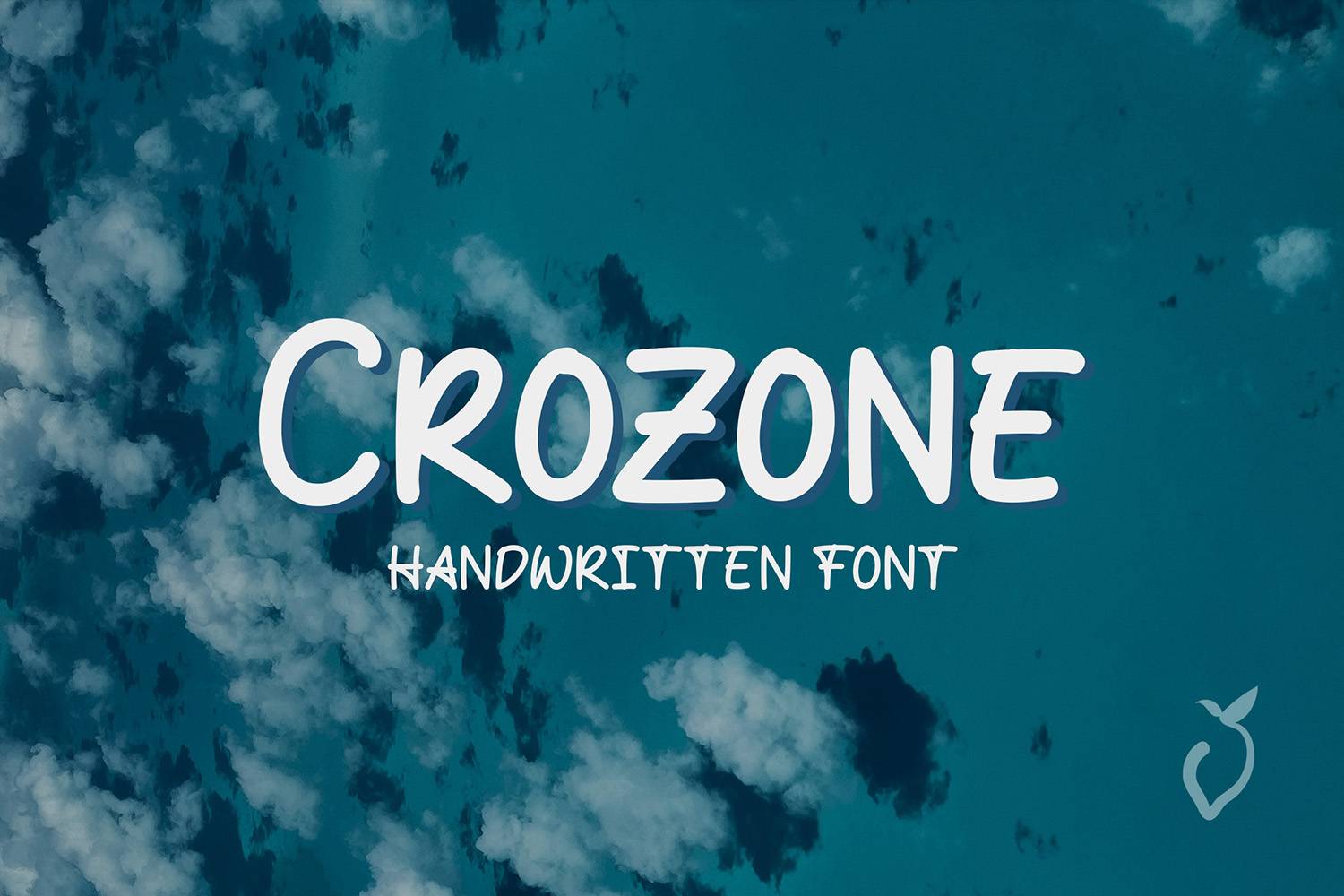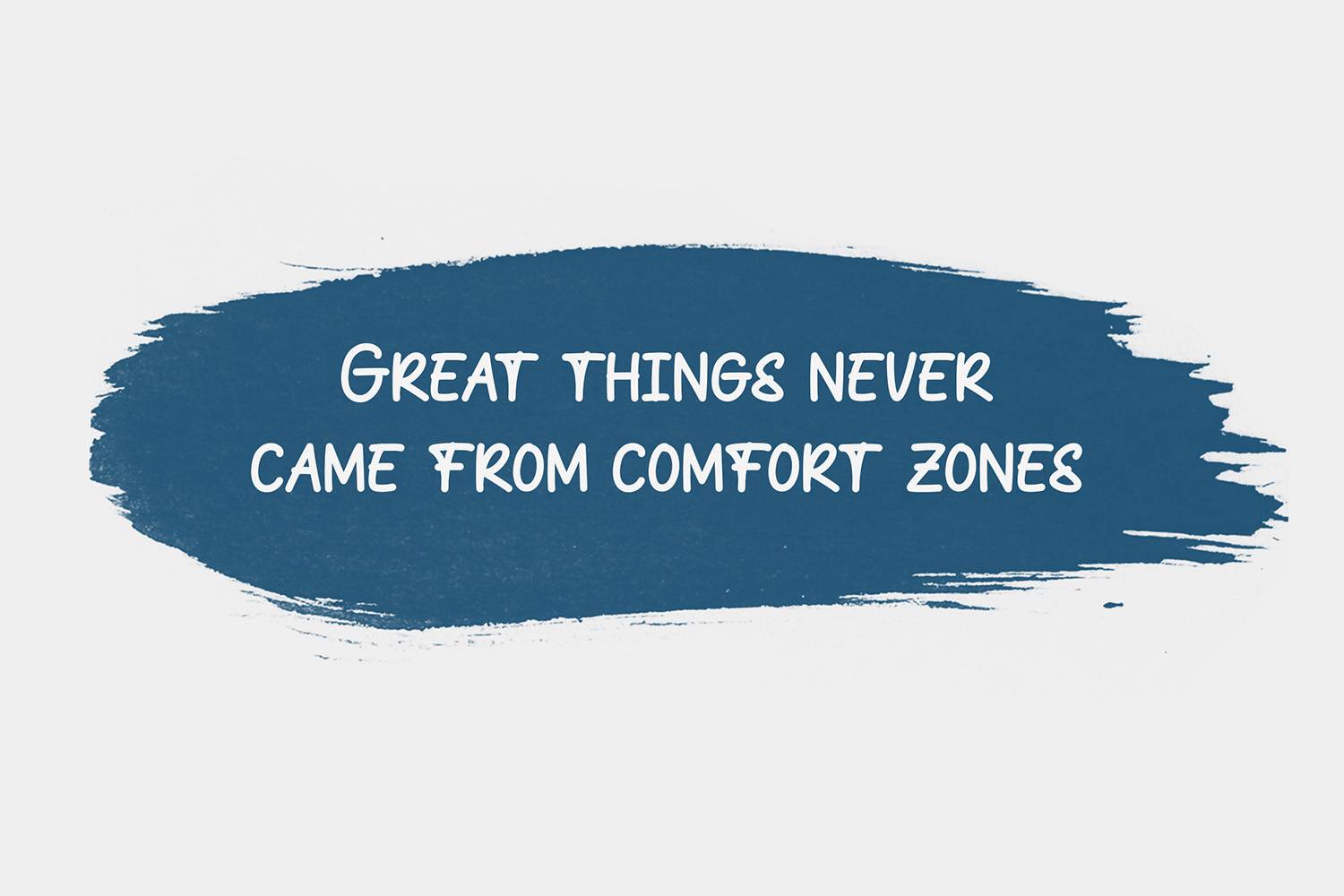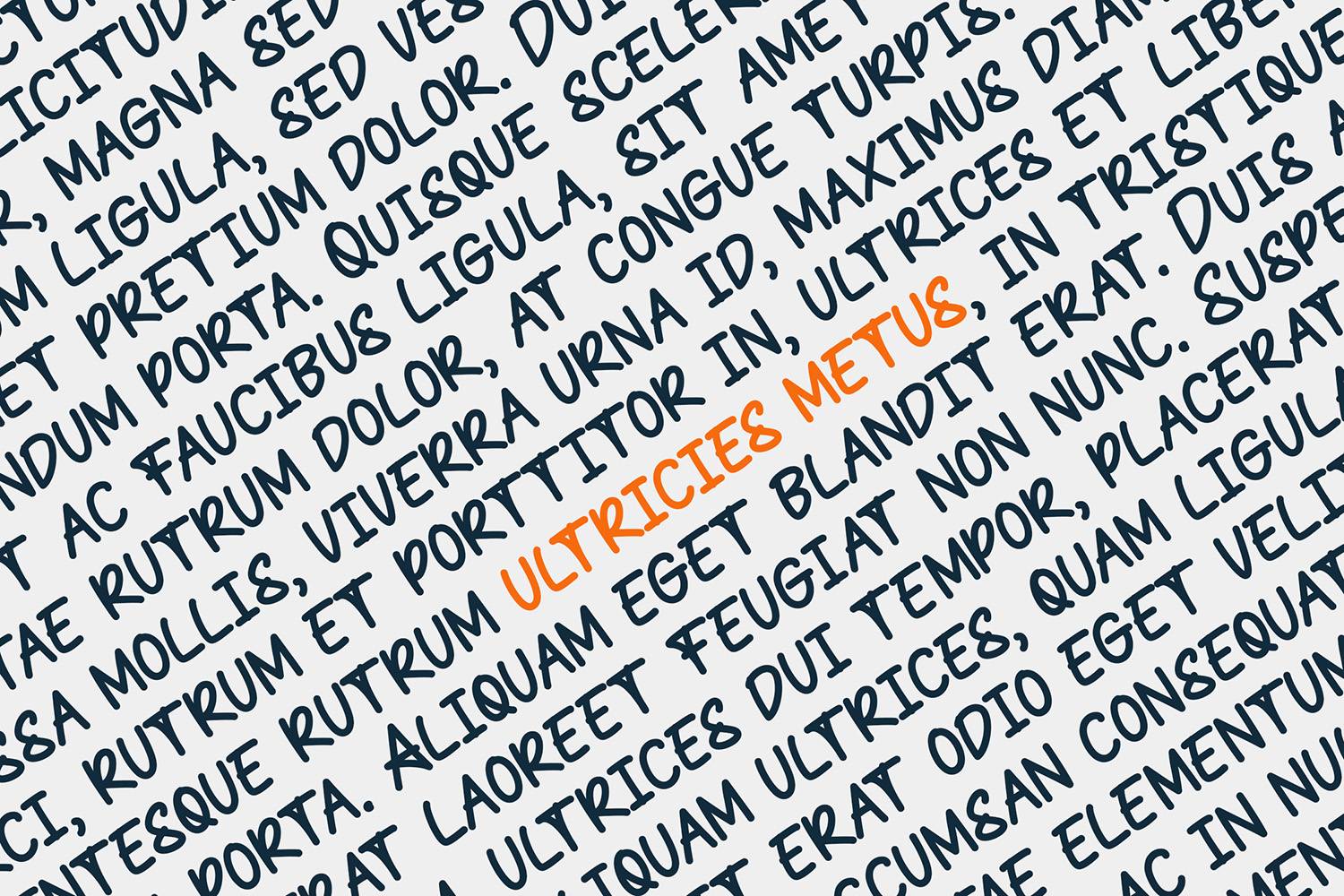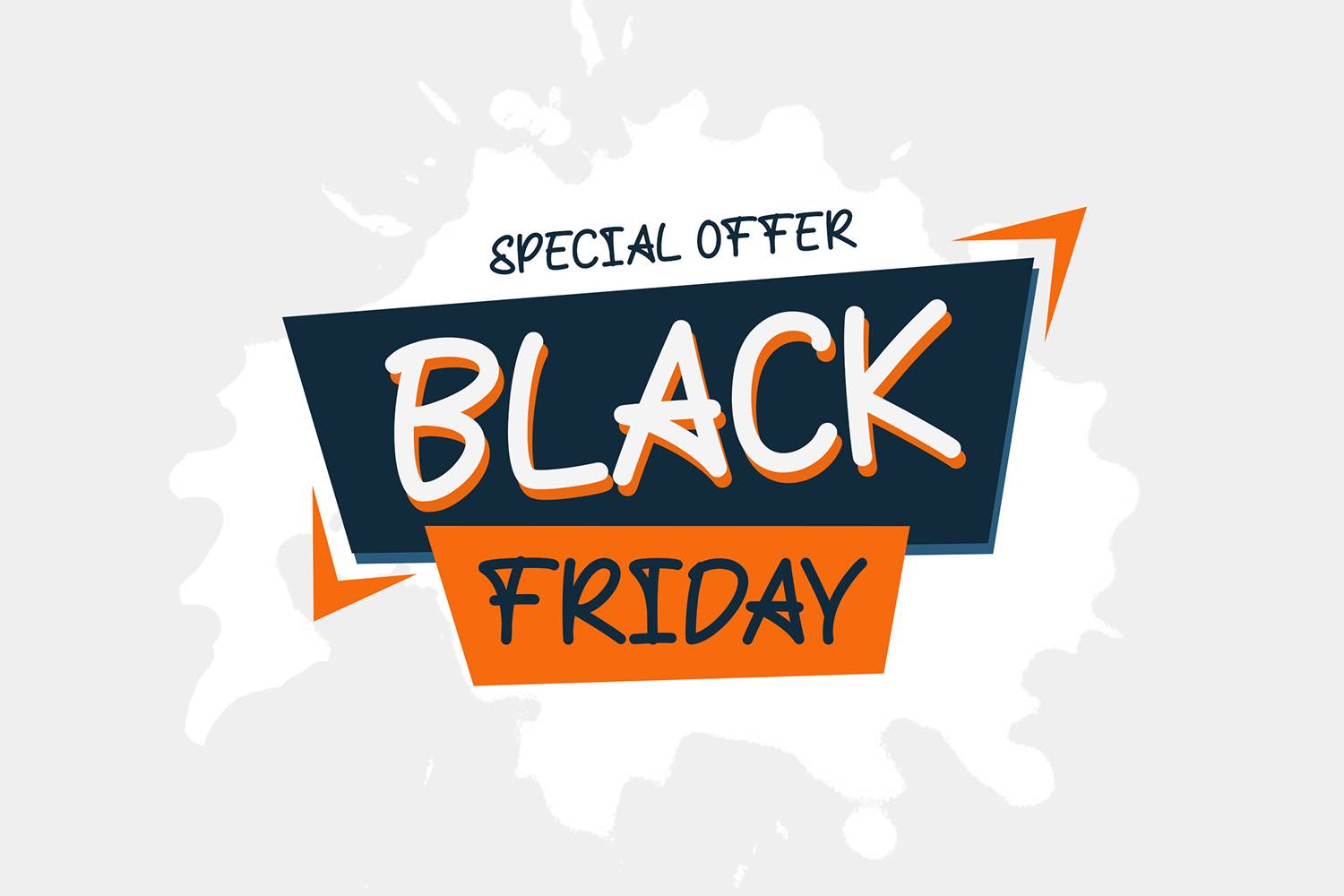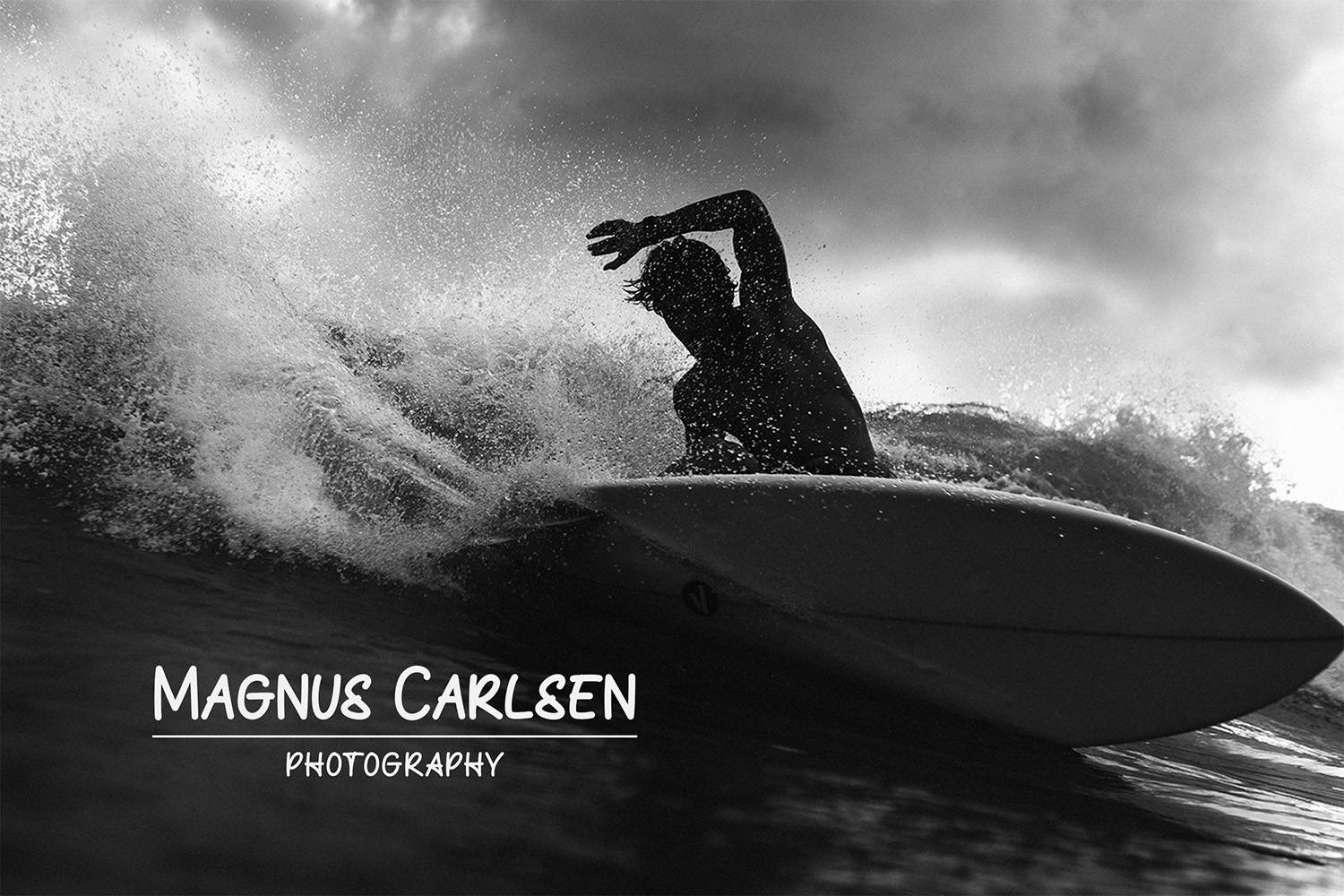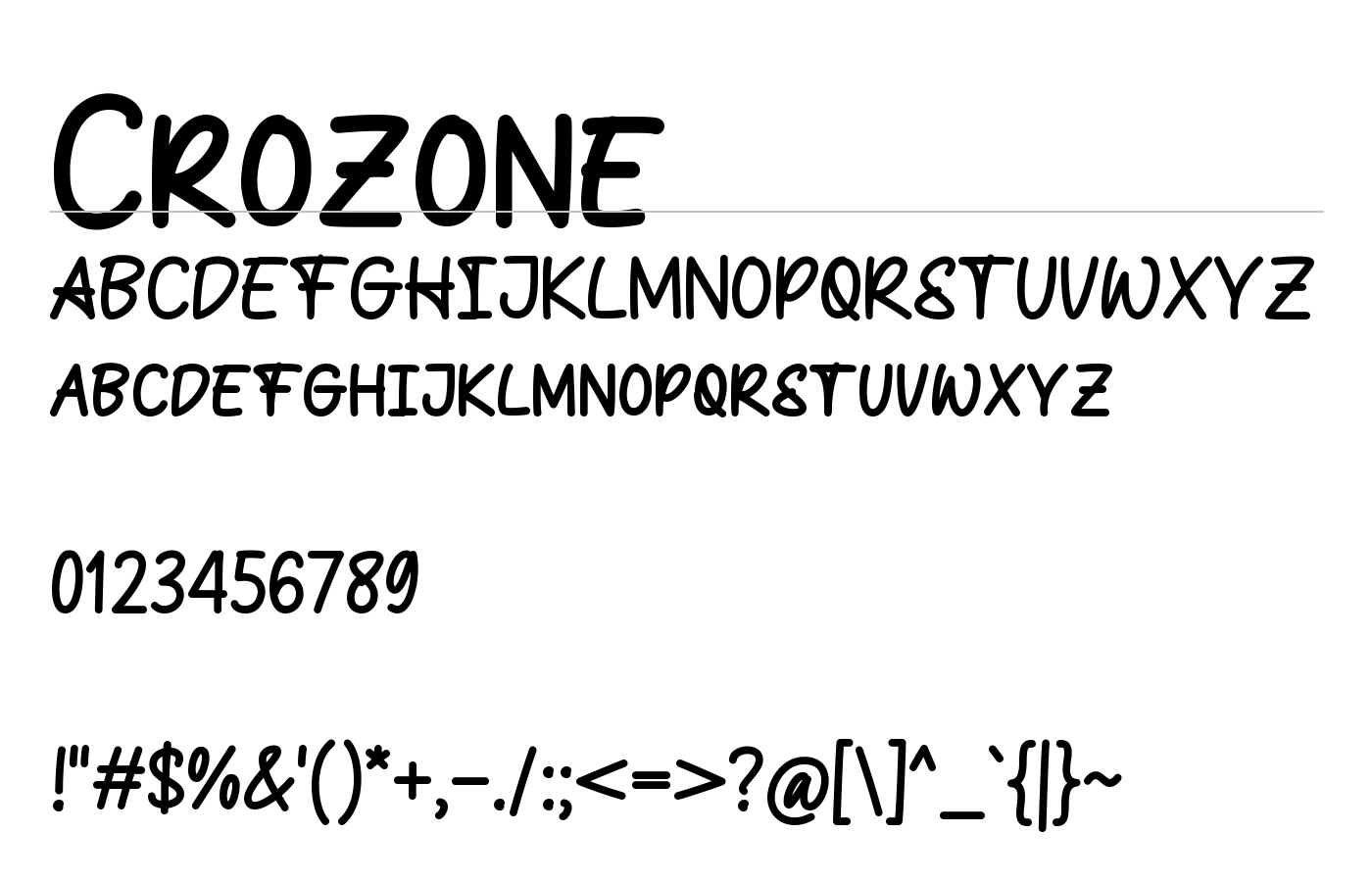
Crozone is a playful, handwritten sans serif font characterized by its casual, rounded stroke style and slightly condensed letterforms. With its informal, friendly vibe and clear legibility, it works well for creative projects, branding, and headlines that seek a warm, approachable feel. This font is ideal for designs that want to convey personality and charm without sacrificing readability.
Crozone Font
About Crozone Font
| Font family | Crozone Font |
| Designer | Dwi Ahidian |